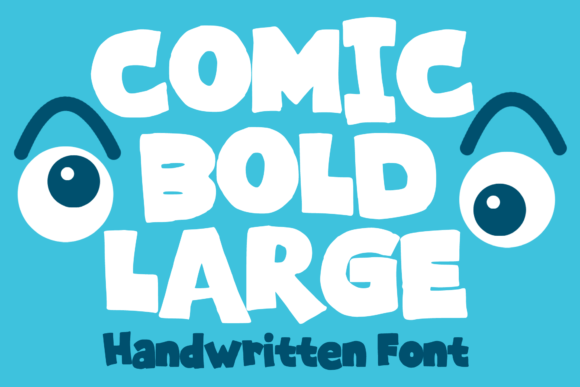
Welcome to the realm of Comic Bold Large, a font created by the ingenious minds at MVMET and exclusively available on our e-commerce platform! This display font is not just a font; it's a whimsical wonderland that captures the essence of fun and cheerfulness.
Comic Bold Large is the ideal font for igniting the imagination and adding a touch of playfulness to your designs. Its bold and cartoonish appearance immediately captivates the eyes, making it the perfect choice for t-shirts, clothing, children's books, party invitations, greeting cards, stickers, posters, and banners.
Let your creativity soar as you explore the endless possibilities offered by Comic Bold Large. The font's bold lines and energetic curves evoke a sense of joy and excitement, making it the perfect choice for projects aimed at capturing the attention of young and old alike.
With Comic Bold Large, you're not just downloading a font; you're embarking on an adventure into a world of laughter and cheerfulness. Its playful and lighthearted nature is sure to bring a smile to the faces of those who encounter it, making it the perfect choice for projects that aim to spread happiness and positivity.
So, whether you're a designer seeking to create captivating designs for children's products, a marketer looking to grab attention with bold and playful visuals, or simply someone who wants to add a touch of fun to their designs, Comic Bold Large is the font for you. Step into the realm of imagination and let your creativity shine with Comic Bold Large today!